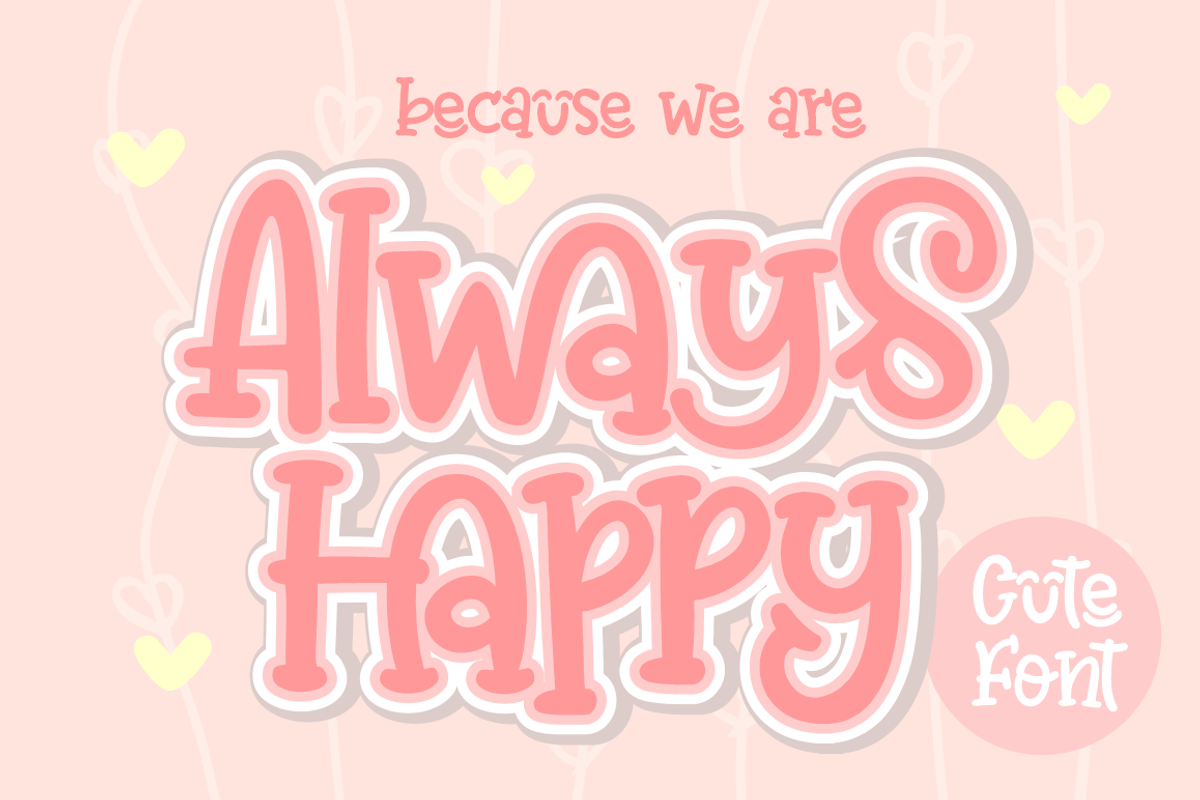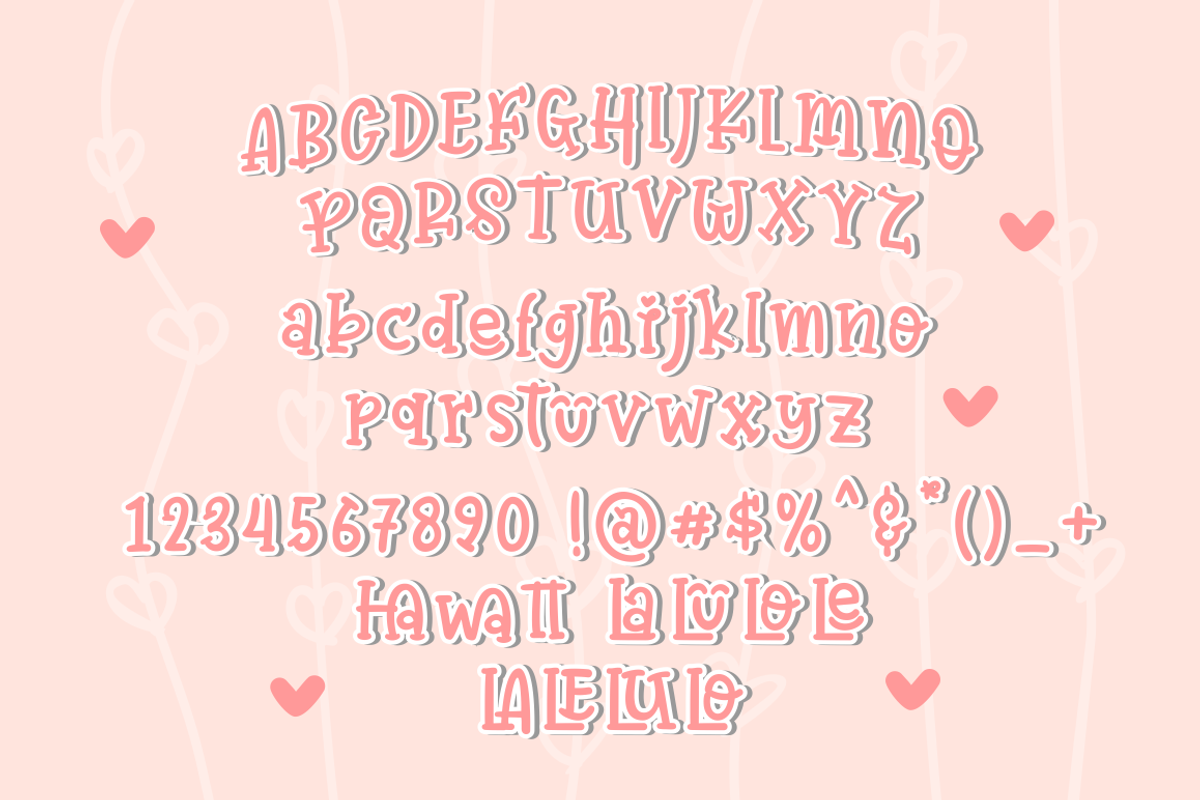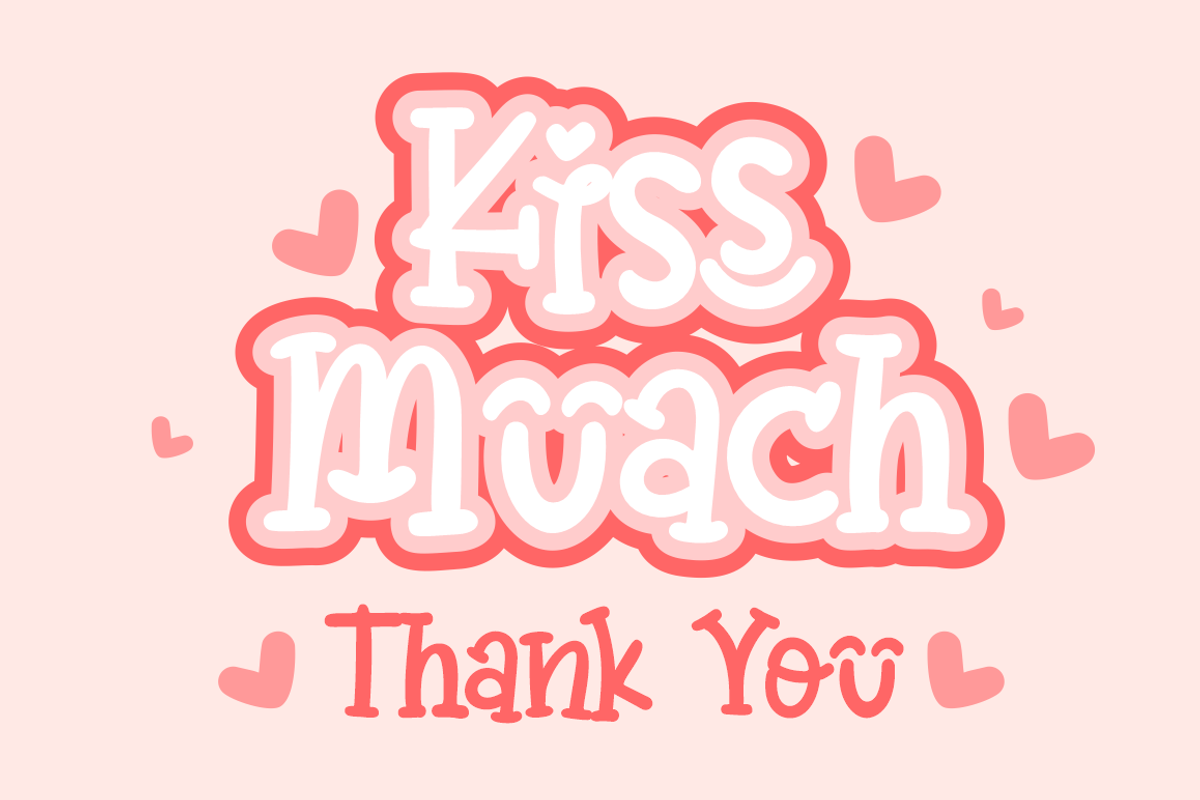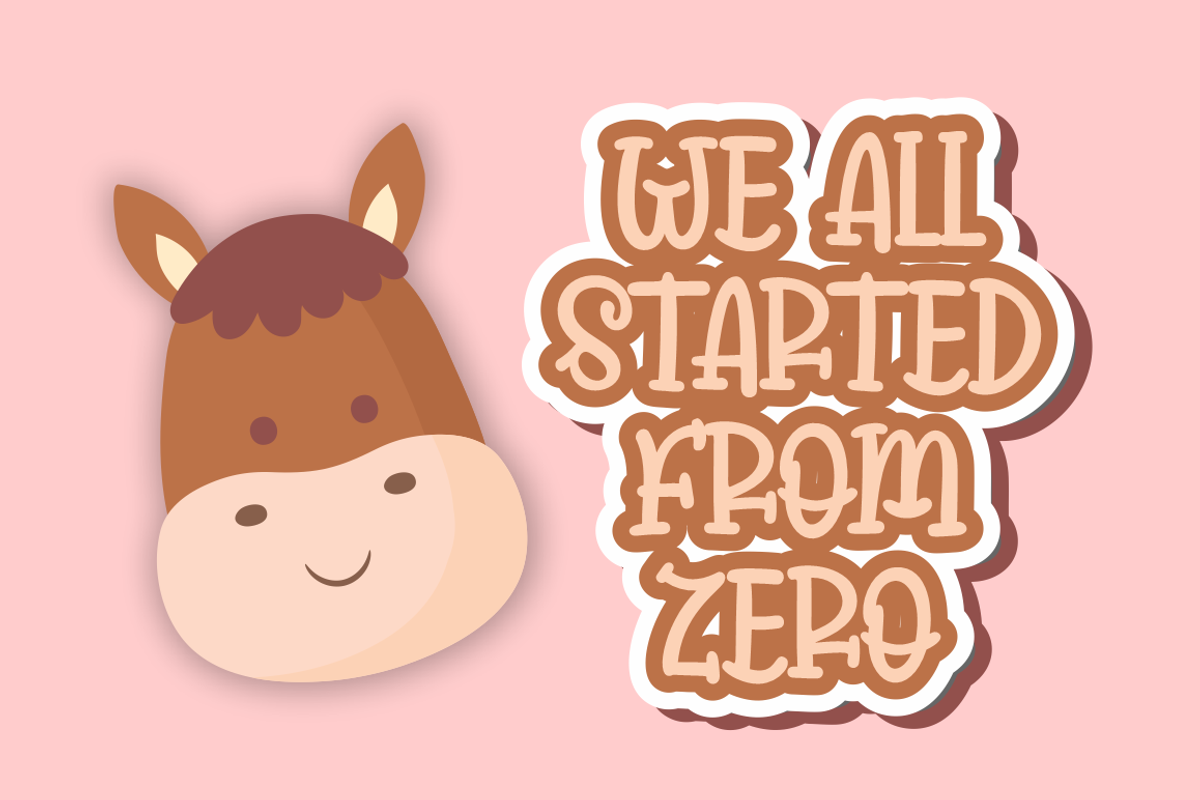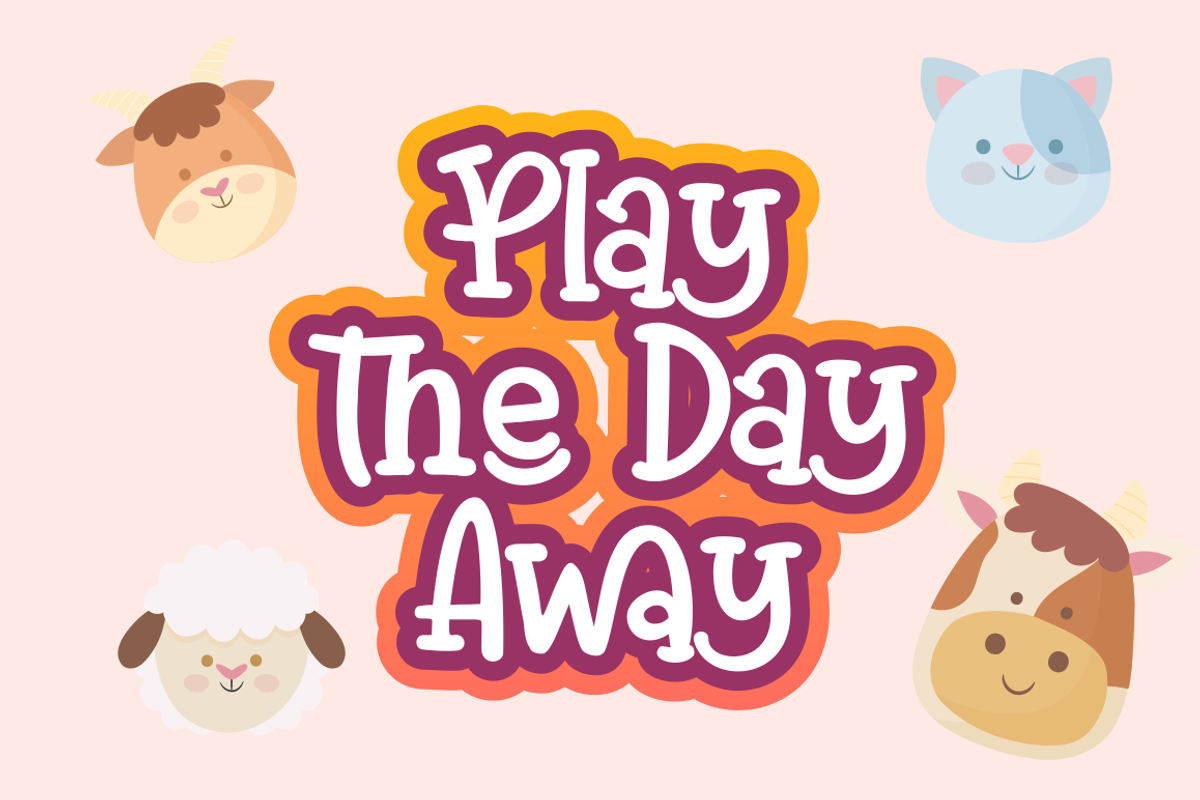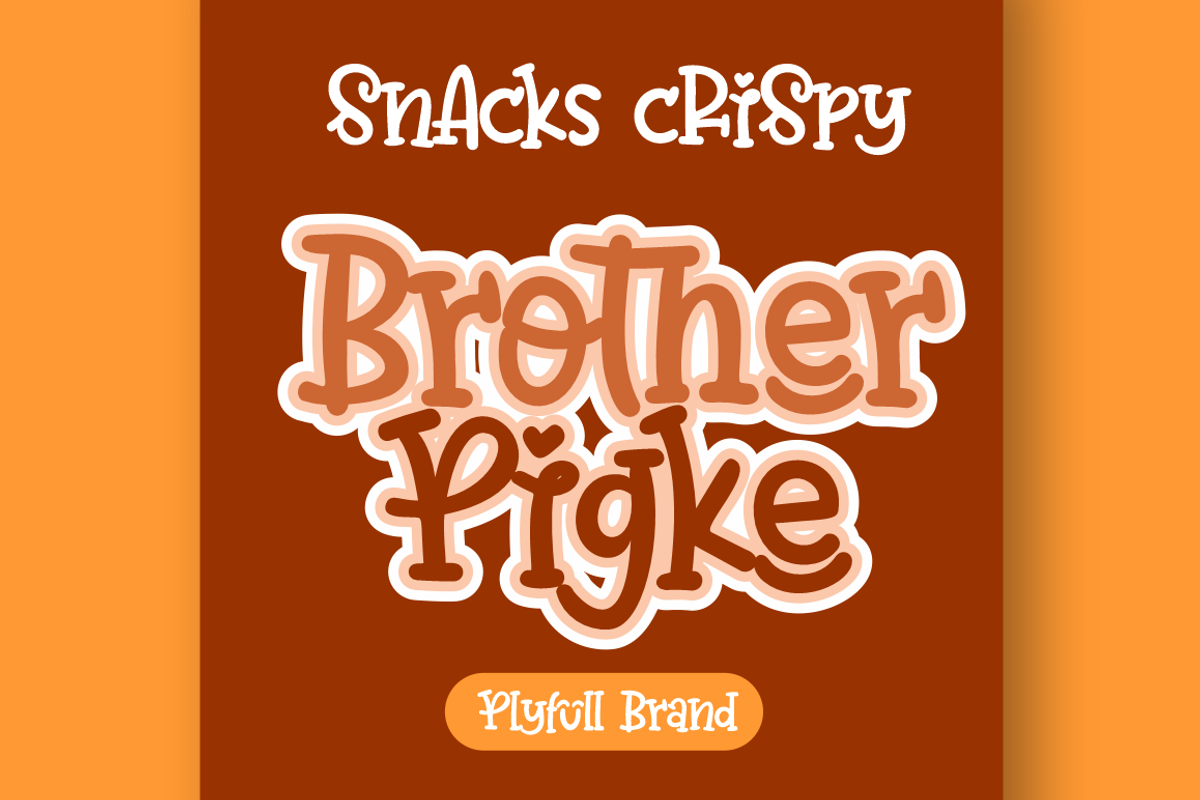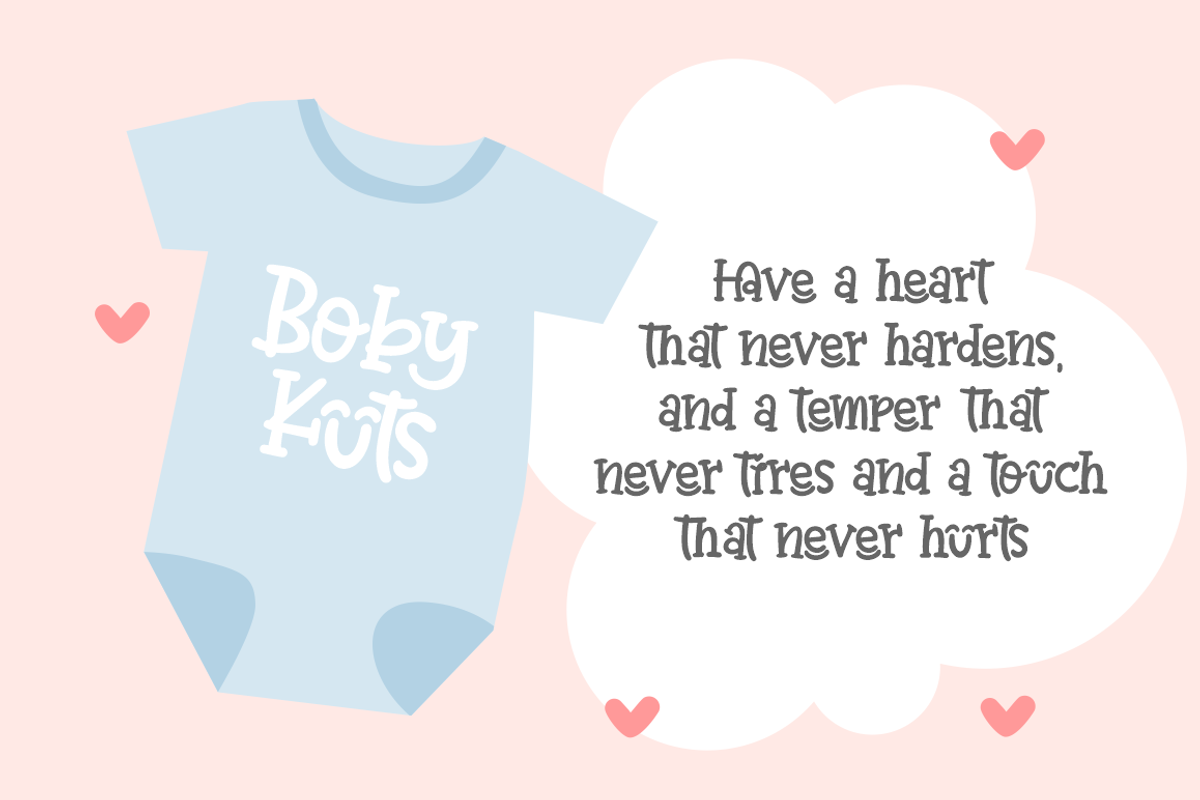
Always Happy | Cute Happy
Always happy. Is a cute handwritten font that comes with ligatures. This font is perfect for t-shirts, posters, packaging, and more.
This font is made with a smiley look.